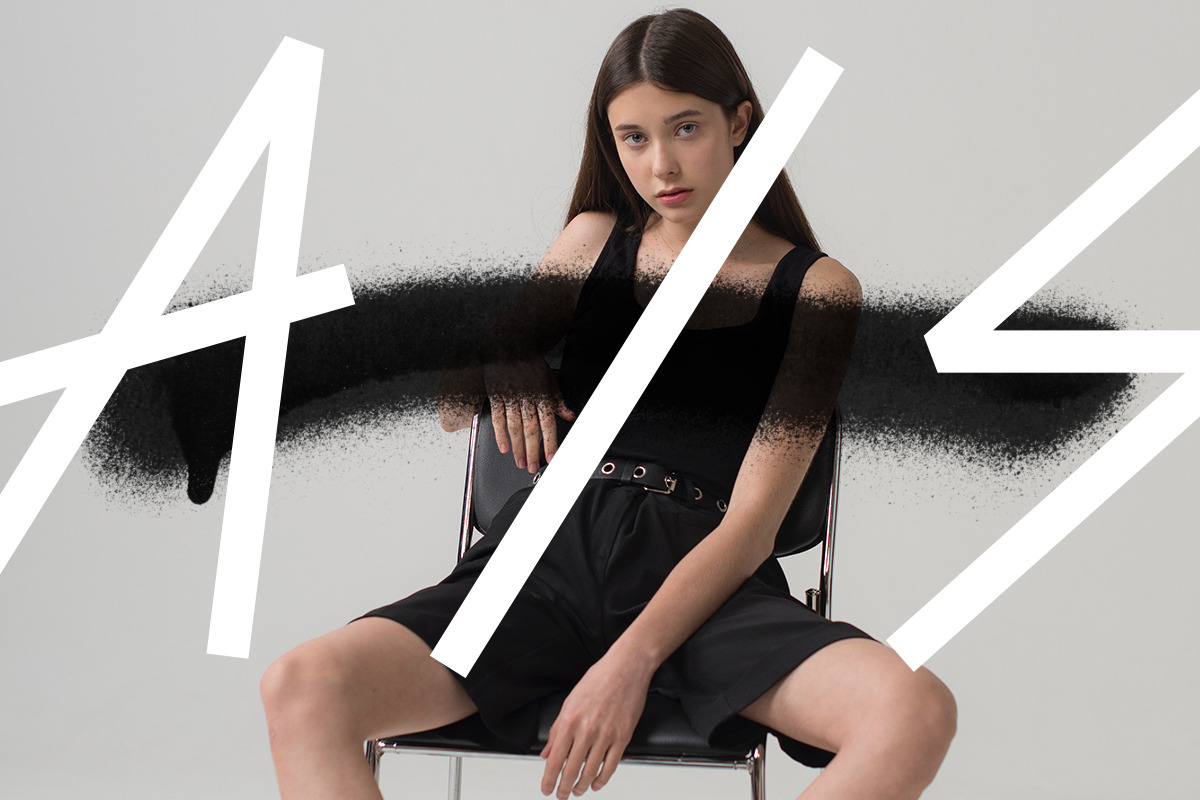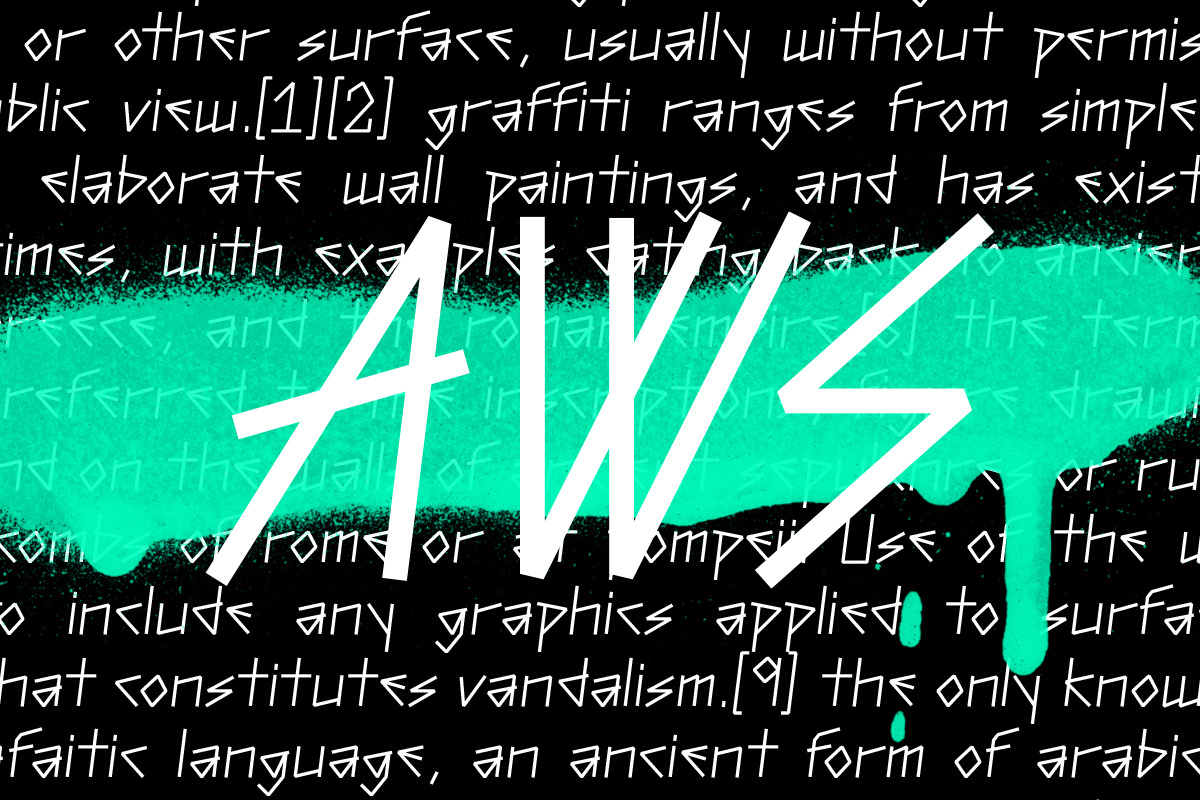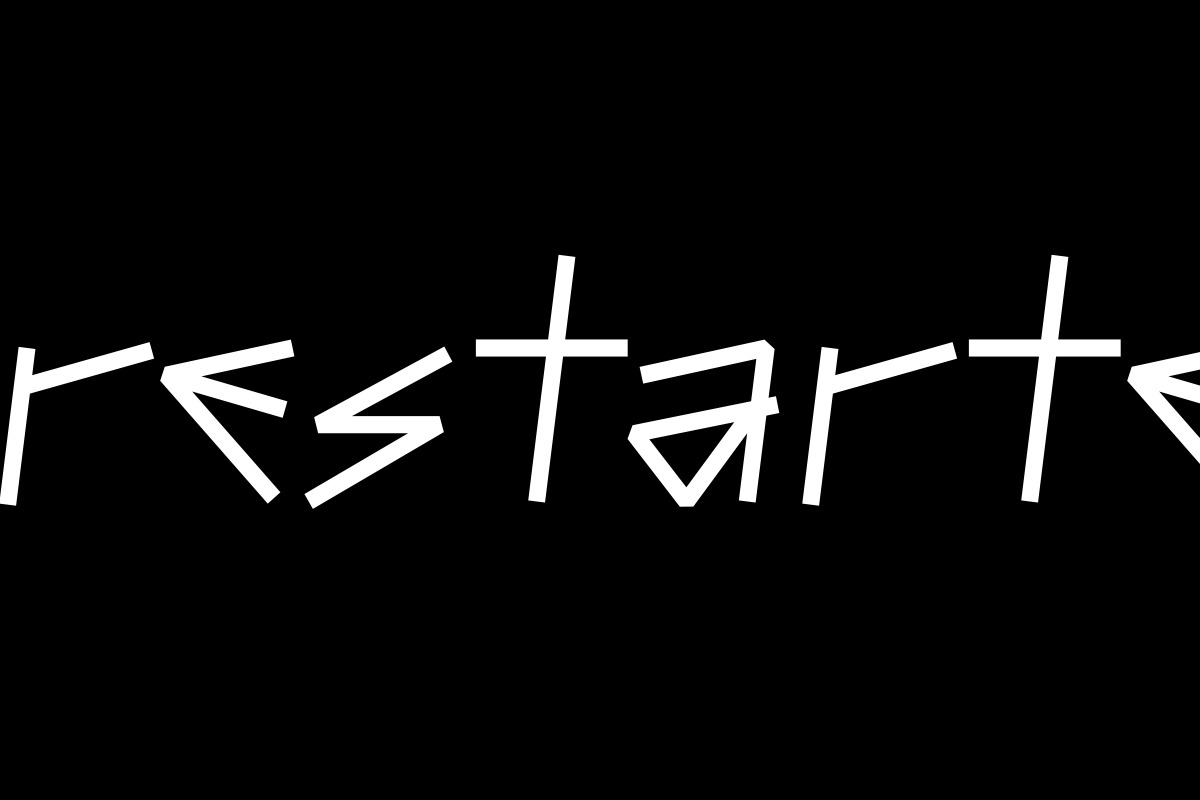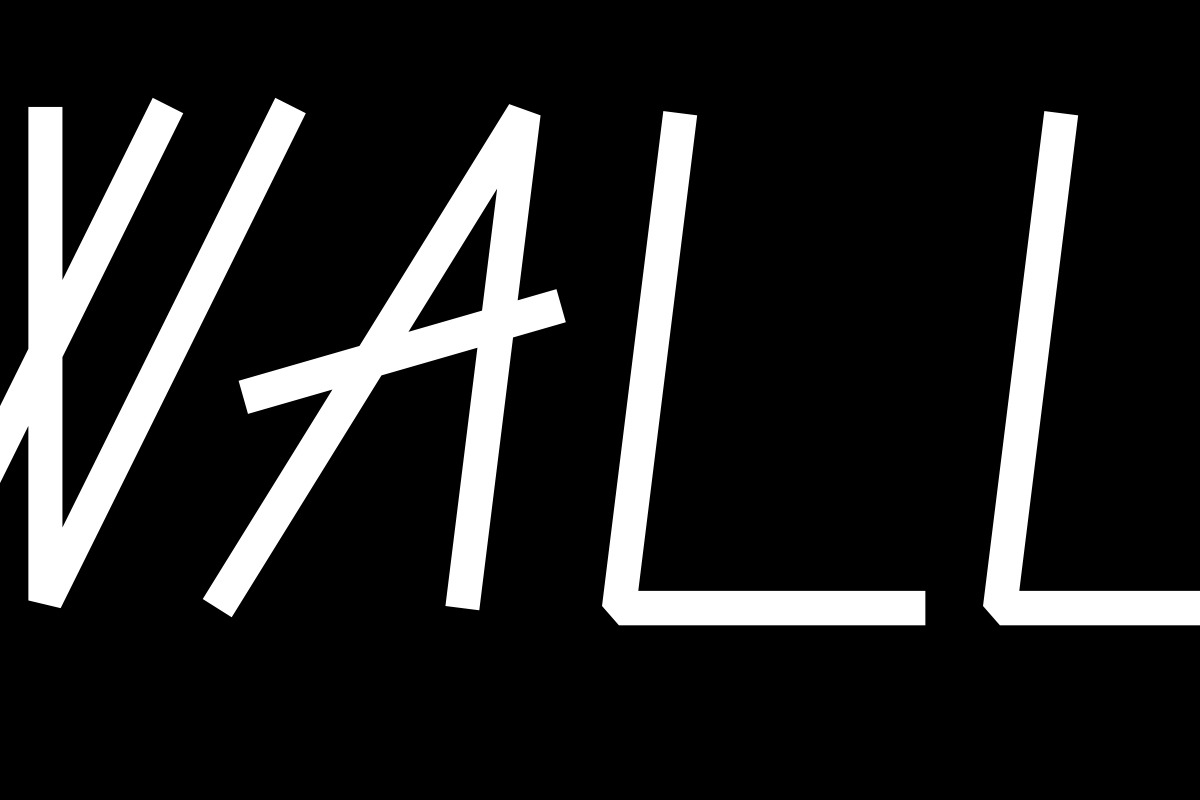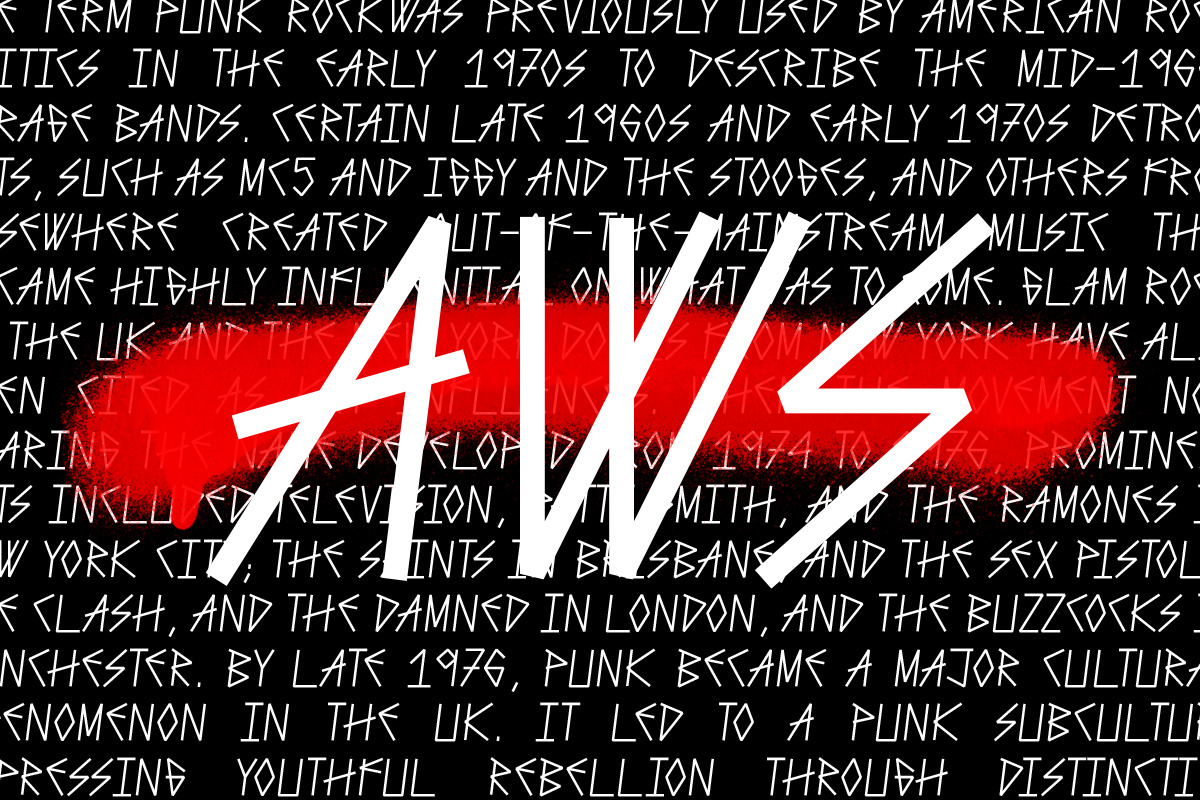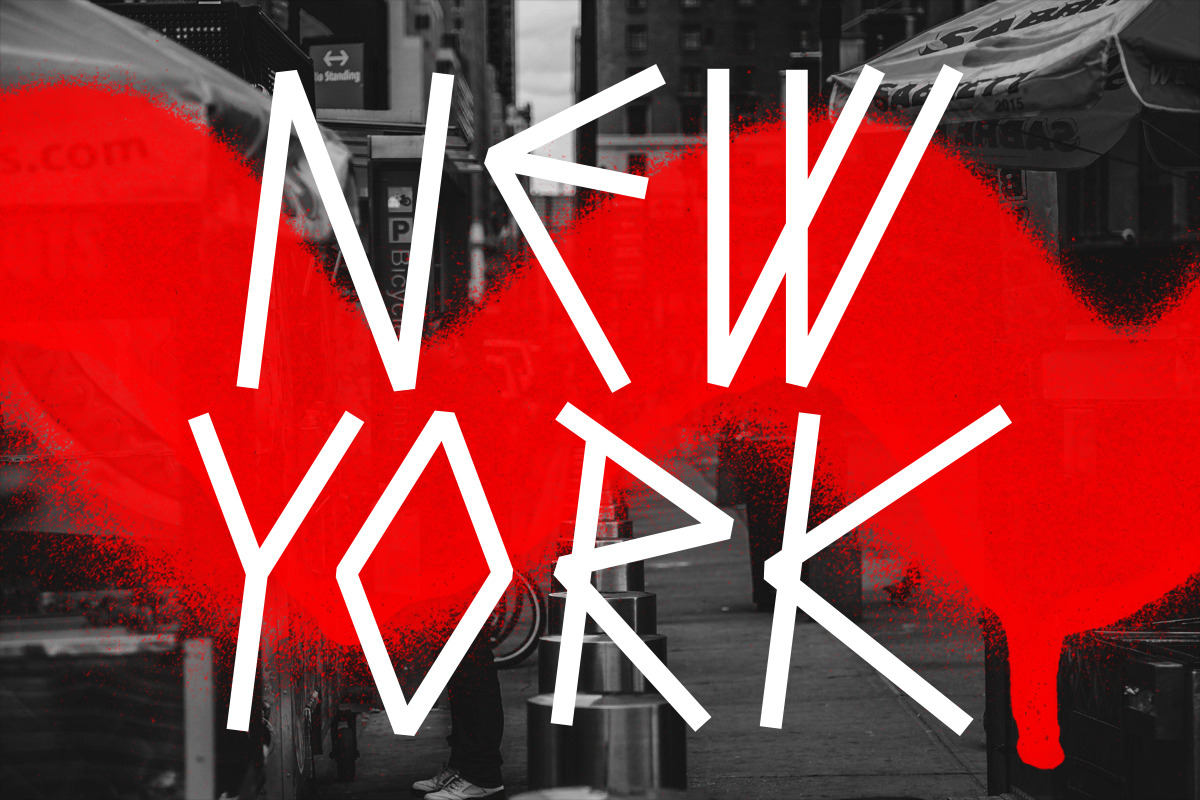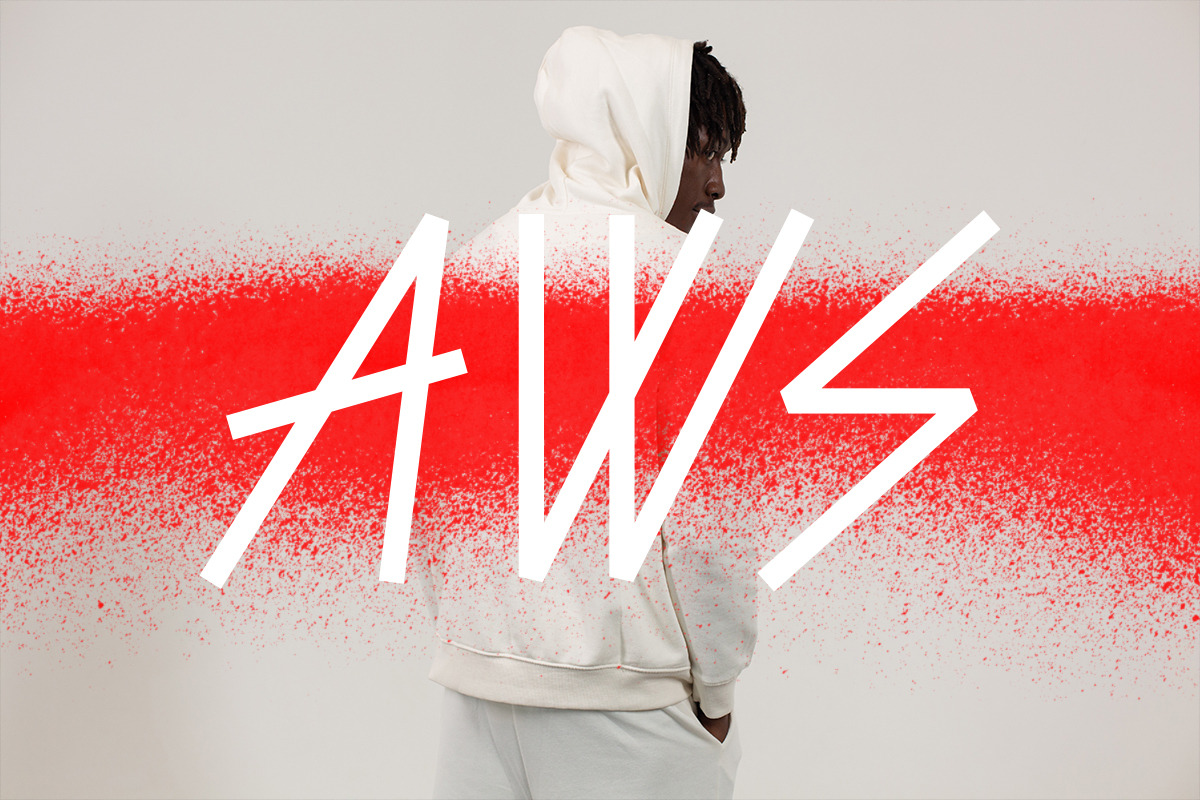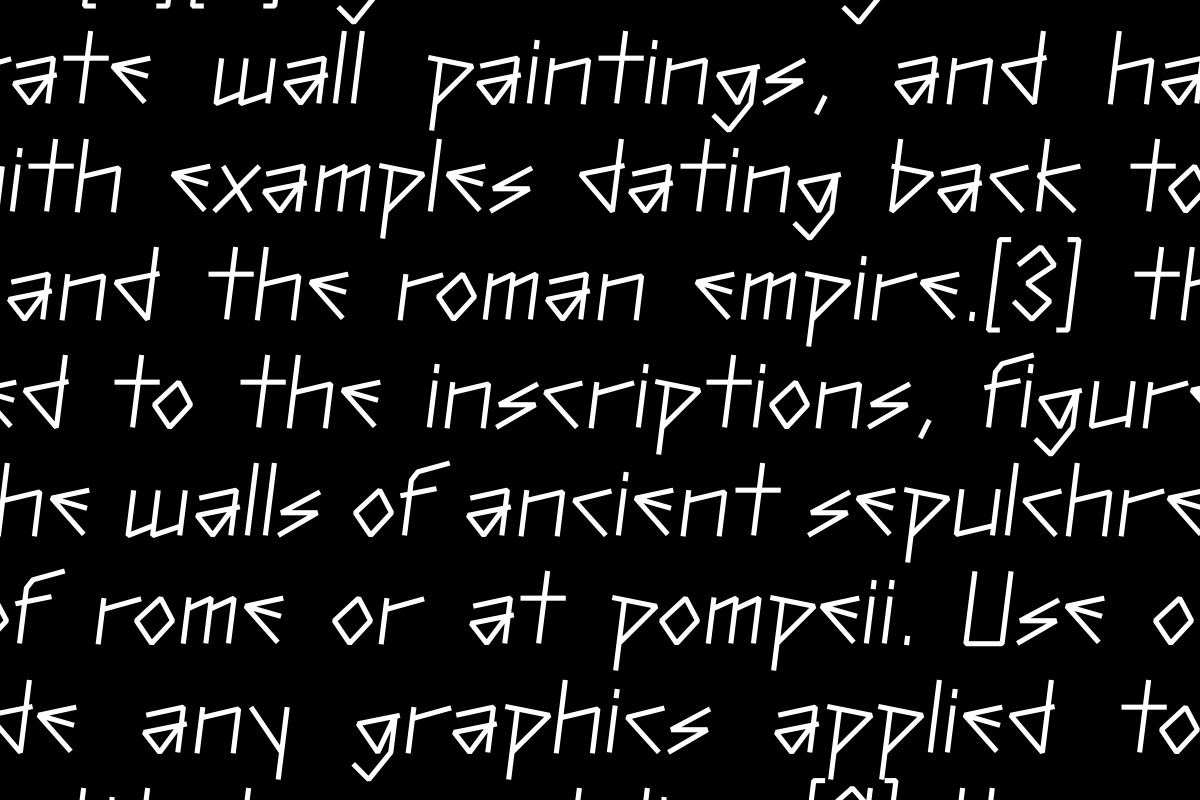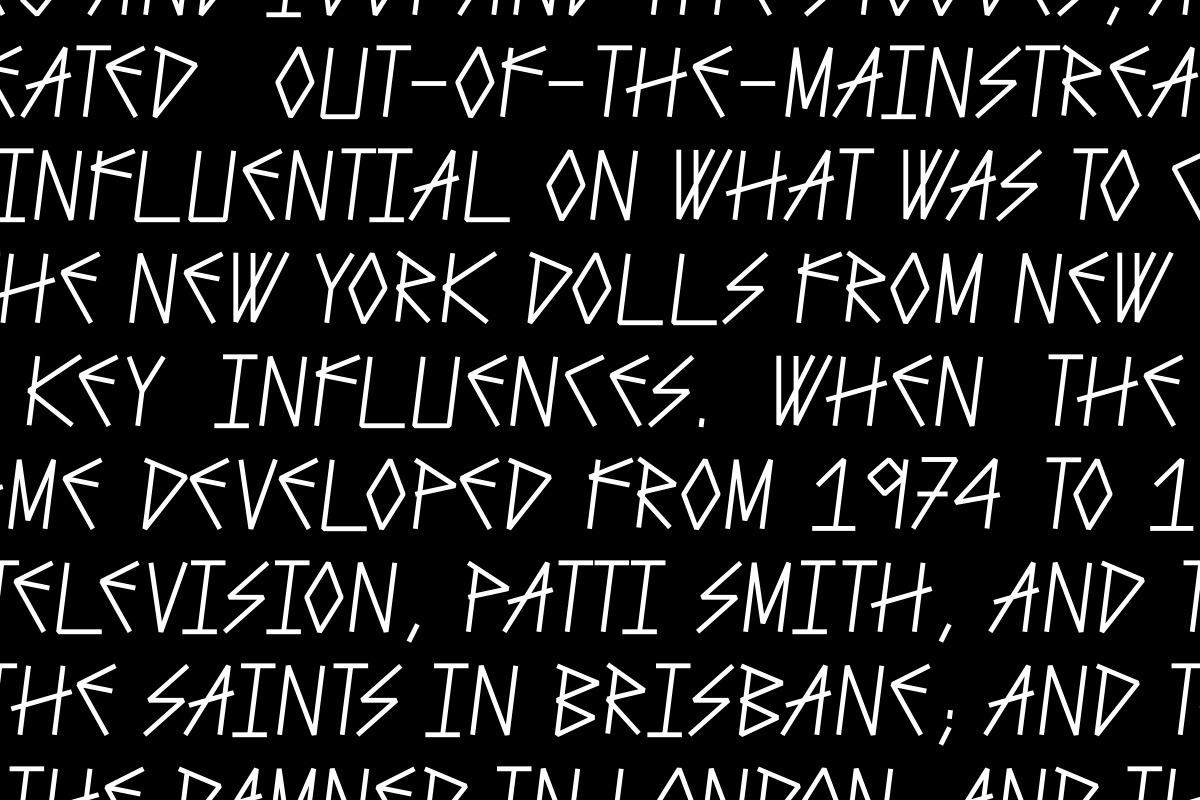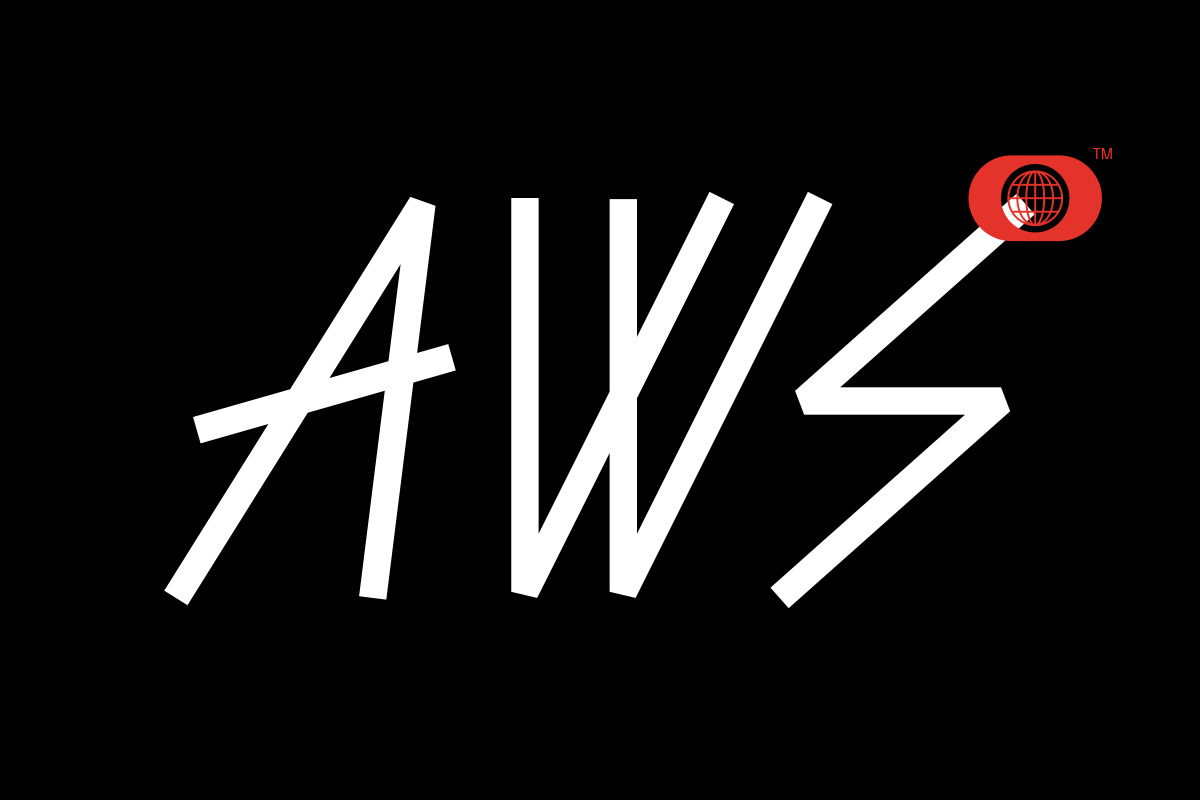
Srg - AWS Linear display font
Srg® - AWS
A modern and urban style typeface.
Specifically designed for display use, great for titles, logotypes, monograms and short texts, it includes 222 glyphs, ASCII / ISO 8859-1 (Latin-1)